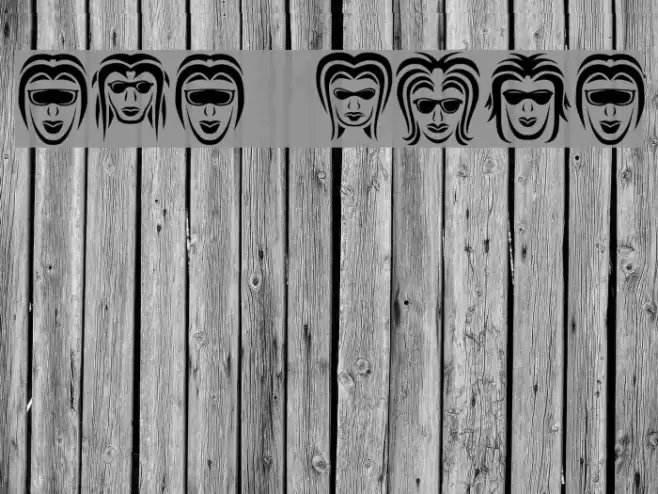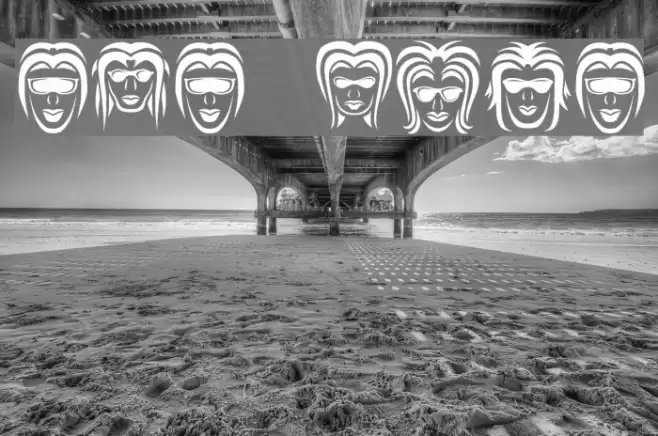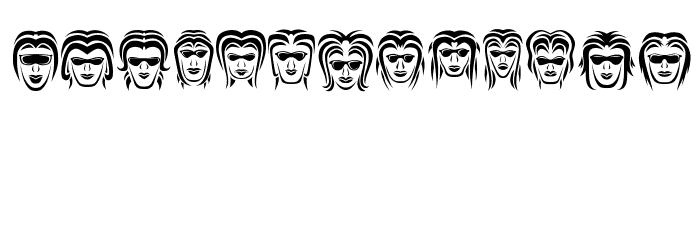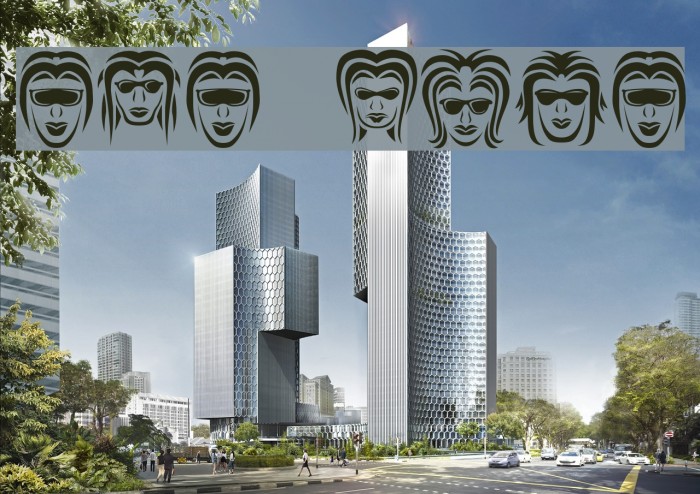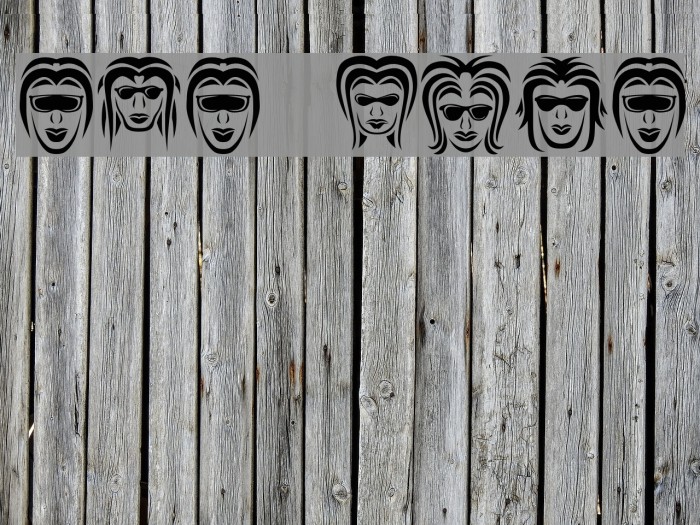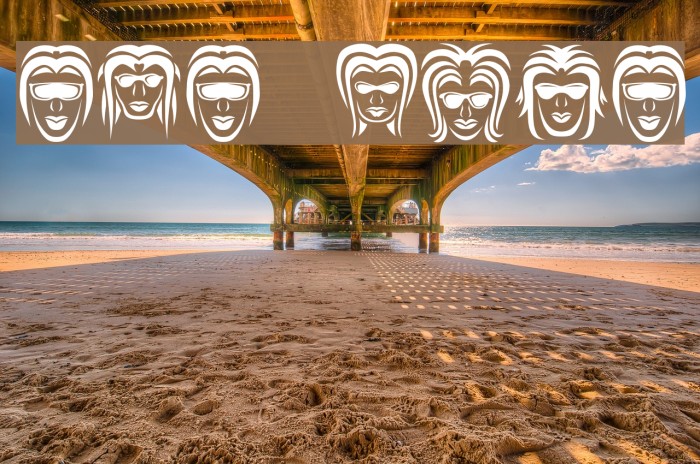
Wanita Regular Font
Wanita Regular Description
This is not a traditional font but rather a collection of decorative icons or symbols. Each character is represented by a stylized face with unique hair and facial features, creating a playful and artistic appearance. The design is consistent across all characters, maintaining a uniform style that emphasizes creativity and visual interest. These icons are highly detailed, with intricate line work that gives each face a distinct personality. The overall effect is both whimsical and bold, making it suitable for projects that require a strong visual impact.
A decorative collection of stylized face icons with unique features from Uncategorized fonts.
- Proposed Projects: Ideal for creative projects such as posters, album covers, or any design requiring a unique and artistic touch.
- Use Case: Logos, Posters, Artistic Designs